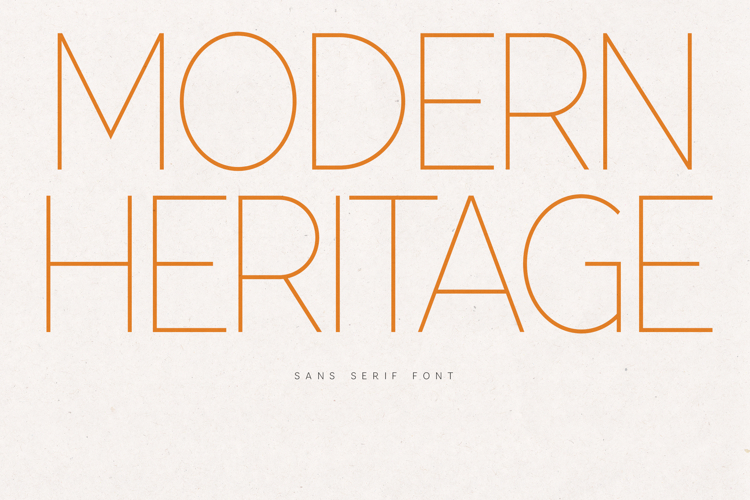
Modern Heritage Elegant Minimal Sans Serif Font
Modern Heritage is a refined thin sans serif typeface inspired by modern minimalism and timeless typography.
Designed with delicate strokes and generous spacing, this font delivers a sophisticated and elegant aesthetic that works beautifully in luxury branding, editorial layouts, and contemporary design.
The clean geometric construction combined with its light structure gives Modern Heritage a calm, premium feel while maintaining excellent readability in large titles and refined typography compositions.
Its minimalist design makes it a perfect choice for projects that require subtle elegance, modern identity, and visual clarity.
• Clean minimalist design
• Elegant thin letterforms